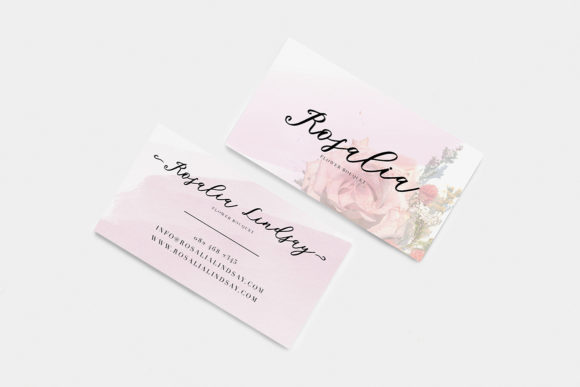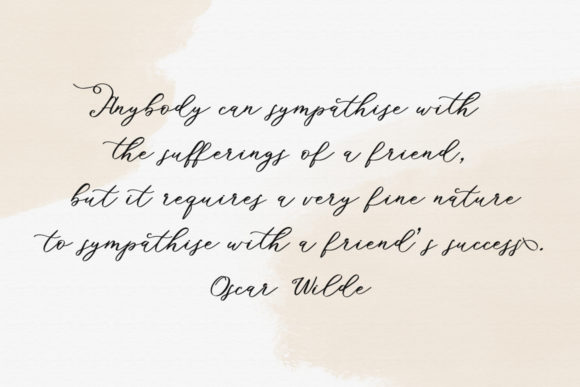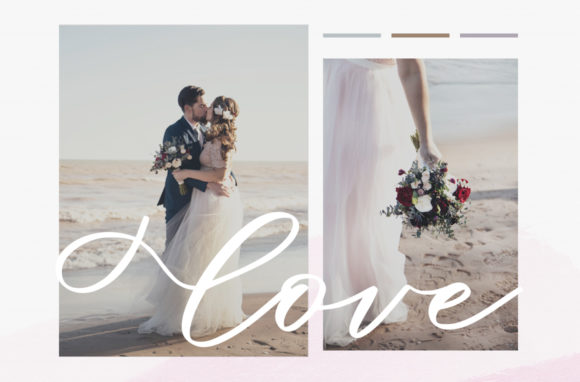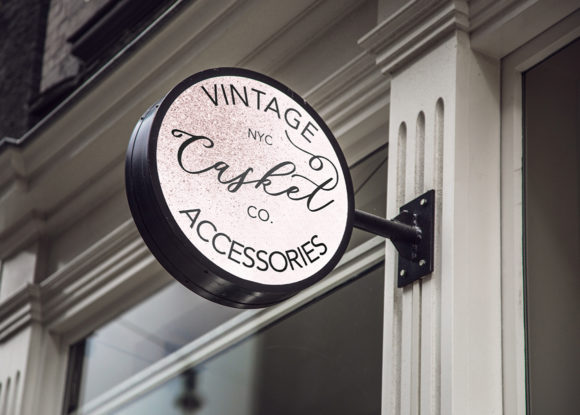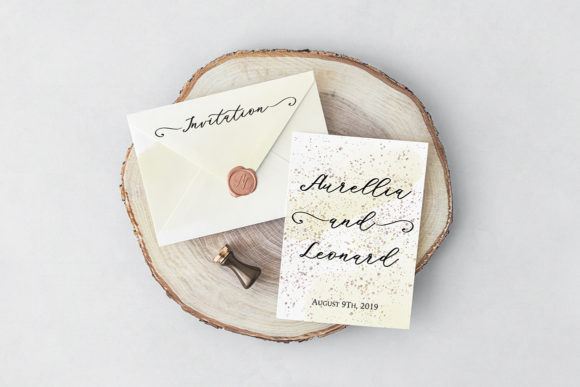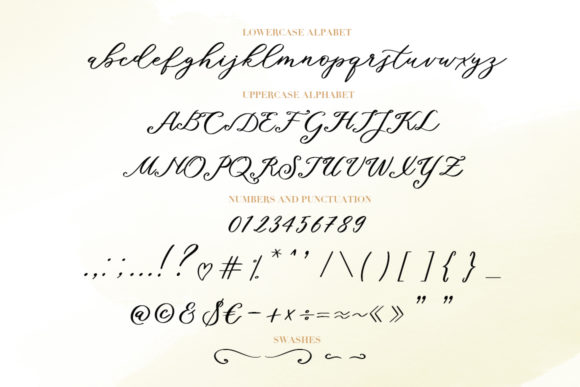
The Perfect Touch: Ellegia Font for Your Crafting Projects
Have you ever been in the middle of a crafting project, feeling like something’s missing, but you can’t quite put your finger on what it is? You’ve got the perfect fabric, the ideal color palette, and the most exquisite design, but it’s just not coming together. That’s when I reach for the Ellegia Font – a beautiful, handwritten typeface that adds a touch of romance to any project.
This gorgeous font is perfect for adding a personal, handwritten feel to your crafts. With plenty of alternate characters, you can customize it to fit your unique style. Whether you’re making cards, scrapbook pages, or other paper crafts, the Ellegia Font is sure to add a special touch.
Key Features of Ellegia Font
- Font Type: Script Font, with elegant and cursive characteristics
- Language Support: Supports multiple languages, including Latin-based languages and some Cyrillic languages
- Unique Characteristics: Ellegia Font features a unique blend of elegance and playfulness, making it suitable for a wide range of applications, from invitations to advertising materials
Designer Review: Ellegia Font
Overall, I was impressed with Ellegia Font, but it had its fair share of highs and lows. ✨ Let’s start with the good stuff.
- ✨ The font’s unique blend of elegance and playfulness is perfect for creative projects, such as branding and marketing materials.
- ✨ Ellegia Font is highly legible, even at smaller font sizes, making it an excellent choice for body text.
- ✨ The font’s extensive character set supports a wide range of languages, making it a great option for global projects.
However, there are some limitations to consider: ⚠️
- ⚠️ The font’s design can be quite bold, which may not be suitable for all types of projects, such as formal documents or academic papers.
- ⚠️ Ellegia Font is not ideal for use in small text sizes, as the bold design can become overwhelming.
- ⚠️ Some users may find the font’s playfulness to be too cursive or handwritten-like, which may not appeal to everyone.
Overall, I would recommend Ellegia Font for creative projects where you want to make a statement. However, it’s essential to consider the potential limitations and use it judiciously.
For a more professional look, adjust the font size and color to match your design.
Use the font to create a striking headline or add a touch of elegance to your design.
Use Ellegia Font to add a touch of sophistication to your presentations or documents.
Ellegia Font is perfect for:
- Business cards and marketing materials
- Editorial and literary publications
For the best results, use Ellegia Font in combination with high-quality images and carefully crafted design elements.
Alternatives to Ellegia Font
Pacifico Font
Pacifico is a beautiful, elegant script font perfect for creating a luxurious and sophisticated look. It is ideal for use in wedding invitations, branding, and packaging design. Pacifico is similar to Ellegia Font in its elegant and refined feel, but has a more relaxed and casual tone.
Great Vibes is a stylish and modern script font that is perfect for creating a trendy and fashionable look. It is ideal for use in magazines, advertising, and social media design. Great Vibes is similar to Ellegia Font in its flowing and connected feel, but has a more energetic and playful tone.
Carolyna Pro is a sophisticated and elegant script font that is perfect for creating a high-end and luxurious look. It is ideal for use in branding, packaging, and editorial design. Carolyna Pro is similar to Ellegia Font in its refined and elegant feel, but has a more dramatic and bold tone.
Playfair Display is a luxurious and elegant serif font that is perfect for creating a high-end and sophisticated look. It is ideal for use in branding, packaging, and editorial design. Playfair Display is similar to Ellegia Font in its refined and elegant feel, but has a more classic and traditional tone.
What is the recommended font size for Ellegia Font?
The recommended font size for Ellegia Font is between 12pt and 24pt, depending on the intended use and viewing distance. For body text, 14pt is a good starting point, while 18pt or larger is recommended for headings and titles.